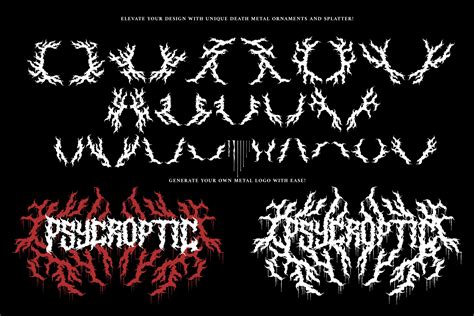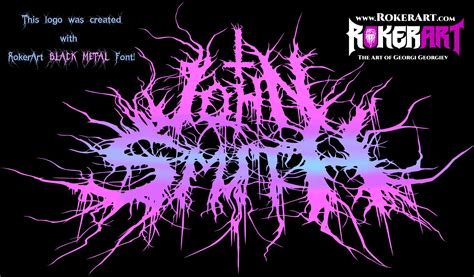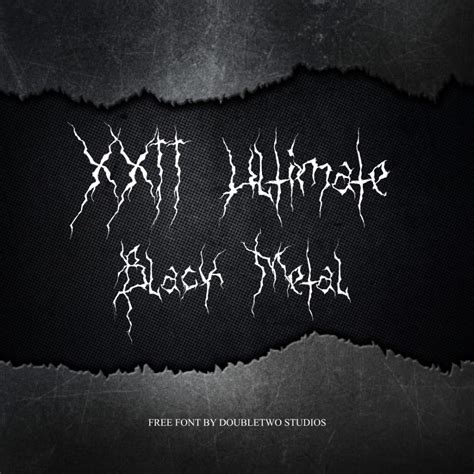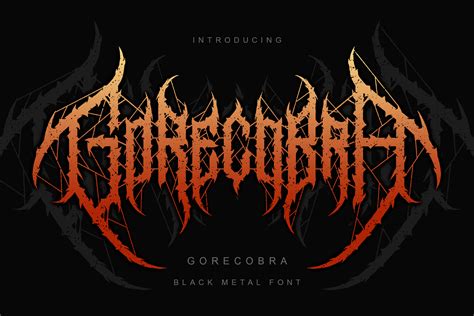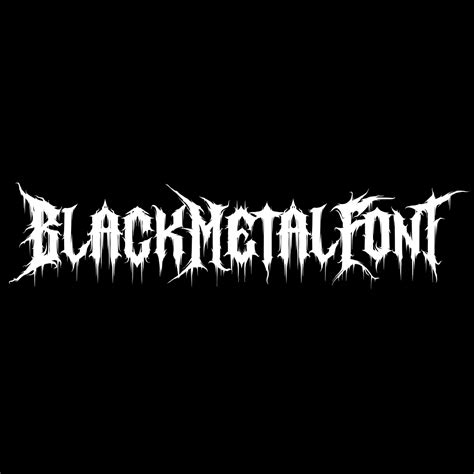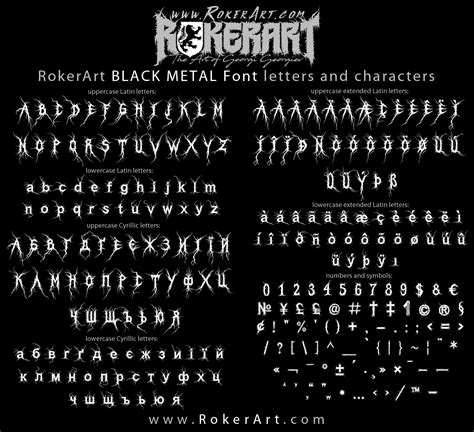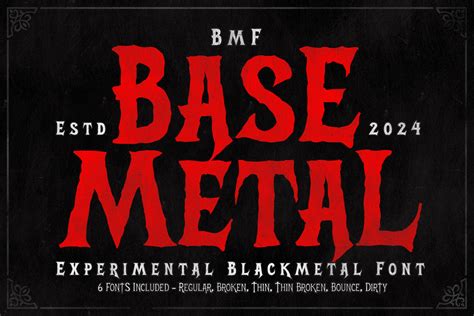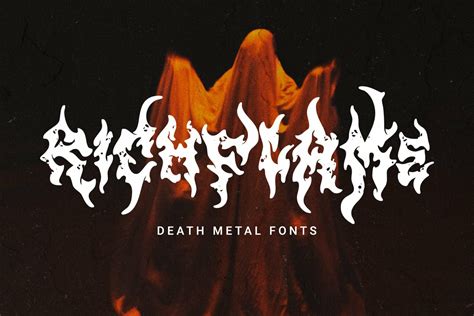
Black metal fonts have long been a staple in the aesthetic of the black metal genre, evoking a sense of mystery, darkness, and raw emotion. These fonts are not just typographic choices; they are an integral part of the visual identity that complements the intense and often controversial nature of black metal music. Whether used on album covers, band logos, or promotional materials, black metal fonts play a crucial role in setting the tone and atmosphere for this unique genre.
The History of Black Metal Fonts
The origins of black metal fonts can be traced back to the early days of the black metal scene in the 1980s and 1990s. Bands like Mayhem, Burzum, and Darkthrone pioneered the use of distinctive, often hand-drawn fonts that conveyed a sense of chaos and rebellion. These fonts were often created by the band members themselves or by close associates, adding a personal touch to the visual presentation of their music.
Over time, the use of black metal fonts has evolved, but the core elements of darkness and intensity remain. Today, these fonts are used not only by black metal bands but also by other genres that seek to evoke a similar mood. The versatility of black metal fonts makes them a popular choice for various artistic and design projects.
Characteristics of Black Metal Fonts
Black metal fonts are characterized by several key features that set them apart from other typographic styles. These characteristics include:
- Sharp and Jagged Edges: Many black metal fonts feature sharp, jagged edges that create a sense of roughness and aggression.
- Gothic and Medieval Influences: These fonts often draw inspiration from Gothic and medieval calligraphy, adding a historical and mystical element to their design.
- Hand-Drawn Aesthetic: The hand-drawn look of many black metal fonts gives them a unique, personal touch that resonates with the DIY ethos of the black metal scene.
- Dark and Heavy: The overall design of black metal fonts is typically dark and heavy, with thick strokes and bold lines that convey a sense of power and intensity.
These characteristics combine to create a visual language that is instantly recognizable and deeply associated with the black metal genre.
Popular Black Metal Fonts
There are numerous black metal fonts available, each with its own unique style and characteristics. Some of the most popular black metal fonts include:
| Font Name | Description |
|---|---|
| Black Metal | A classic black metal font with sharp edges and a hand-drawn aesthetic. |
| Death Metal | A heavy and aggressive font with thick strokes and a dark, gothic feel. |
| Dark Ages | A font inspired by medieval calligraphy, with a mystical and eerie atmosphere. |
| Evil Empire | A font with a modern twist, combining sharp edges with a sleek, contemporary design. |
| Gothic Metal | A font that blends gothic and metal elements, creating a unique and striking visual style. |
These fonts are just a few examples of the many black metal fonts available. Each font offers a different take on the classic black metal aesthetic, allowing designers and artists to choose the one that best fits their project.
Using Black Metal Fonts in Design
Black metal fonts can be used in a variety of design projects, from album covers and band logos to posters and merchandise. Here are some tips for effectively using black metal fonts in your designs:
- Choose the Right Font: Select a font that complements the overall aesthetic of your project. Consider the mood and atmosphere you want to create, and choose a font that enhances these elements.
- Keep It Simple: Avoid overcrowding your design with too many fonts or elements. A simple, clean design allows the black metal font to stand out and make a strong impact.
- Use Contrast: Pair your black metal font with contrasting colors and textures to create a striking visual effect. Dark backgrounds and light text, or vice versa, can help your design stand out.
- Experiment with Sizes: Play with different font sizes to create a dynamic and engaging design. Larger text can be used for headlines or key phrases, while smaller text can be used for supporting information.
By following these tips, you can create designs that effectively utilize black metal fonts to convey the desired mood and atmosphere.
đź’ˇ Note: When using black metal fonts, it's important to consider the readability of the text. While these fonts can be visually striking, they may not always be easy to read, especially at smaller sizes. Make sure to test your design at different sizes and resolutions to ensure that the text remains legible.
Creating Your Own Black Metal Font
If you're feeling creative, you can also design your own black metal font. Creating a custom font allows you to tailor the design to your specific needs and preferences. Here are the steps to create your own black metal font:
- Sketch Your Design: Start by sketching out your font design on paper. Experiment with different shapes, sizes, and styles to find the look that best fits your vision.
- Digitize Your Design: Use a vector graphics program like Adobe Illustrator or Inkscape to digitize your sketch. This will allow you to create a clean, scalable version of your font.
- Refine Your Design: Refine your digitized design, adjusting the shapes and lines to achieve the desired look. Pay attention to details like spacing, kerning, and alignment to ensure that your font is both visually appealing and functional.
- Generate the Font File: Use a font creation tool like FontForge or Glyphs to generate the font file. This tool will allow you to convert your vector design into a usable font format, such as TrueType or OpenType.
- Test Your Font: Test your font in various applications and at different sizes to ensure that it works well in different contexts. Make any necessary adjustments to improve readability and performance.
Creating your own black metal font can be a rewarding experience, allowing you to express your creativity and add a personal touch to your designs.
đź’ˇ Note: Designing a font requires a good understanding of typography and graphic design principles. If you're new to font design, consider taking a course or tutorial to learn the basics before starting your project.
Inspiration from Black Metal Bands
Many black metal bands have created iconic logos and album covers that feature distinctive black metal fonts. These designs serve as excellent sources of inspiration for anyone looking to create their own black metal-themed projects. Some notable examples include:
- Mayhem: Known for their raw and aggressive sound, Mayhem's album covers and logos often feature sharp, jagged fonts that convey a sense of chaos and intensity.
- Burzum: Burzum's minimalist and atmospheric music is complemented by simple, yet striking black metal fonts that evoke a sense of mystery and isolation.
- Darkthrone: Darkthrone's logo features a bold, hand-drawn font that captures the essence of the band's raw and unpolished sound.
- Gorgoroth: Gorgoroth's album covers often feature intricate, gothic-inspired fonts that add a dark and mystical element to their visual presentation.
These bands, among many others, have set the standard for black metal fonts and continue to inspire new generations of artists and designers.
![]()
By studying these examples, you can gain a deeper understanding of how black metal fonts are used to create a cohesive and impactful visual identity.
Black metal fonts are more than just typographic choices; they are a vital part of the visual language of the black metal genre. Whether you're a designer, an artist, or a fan of black metal music, understanding and utilizing black metal fonts can help you create powerful and evocative designs. From their sharp, jagged edges to their gothic and medieval influences, black metal fonts offer a unique and versatile tool for expressing darkness, intensity, and raw emotion.
By exploring the history, characteristics, and uses of black metal fonts, you can gain a deeper appreciation for this distinctive typographic style and its role in the world of black metal. Whether you’re creating a new design project or simply enjoying the music, black metal fonts continue to be an essential element of the genre’s aesthetic.